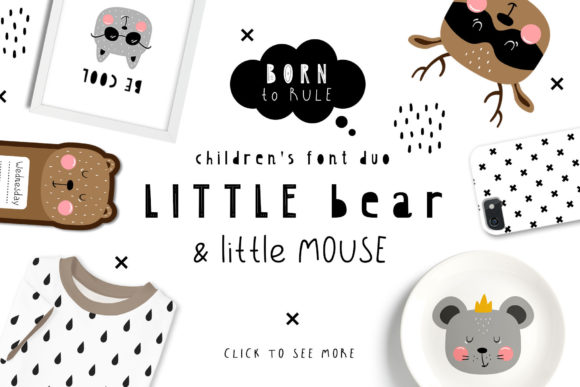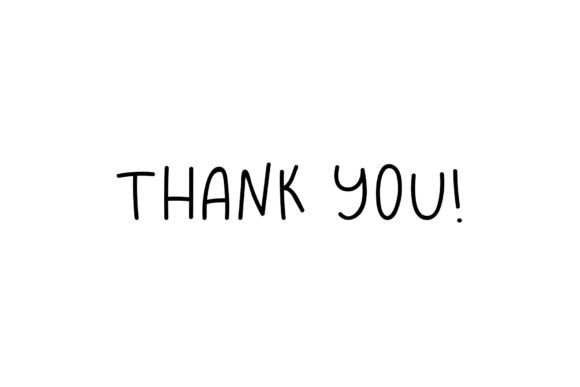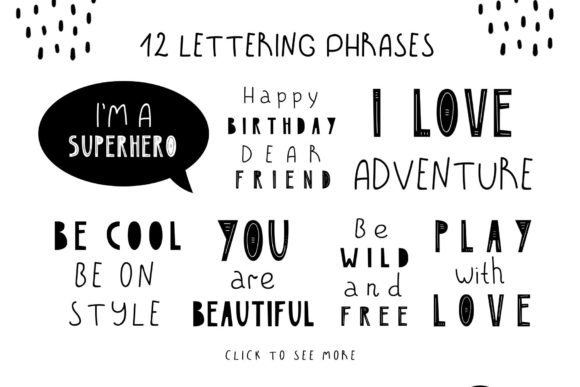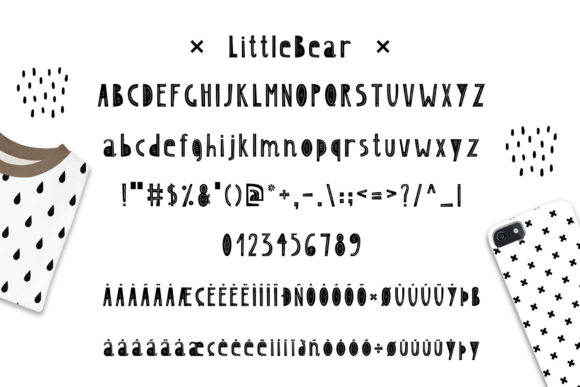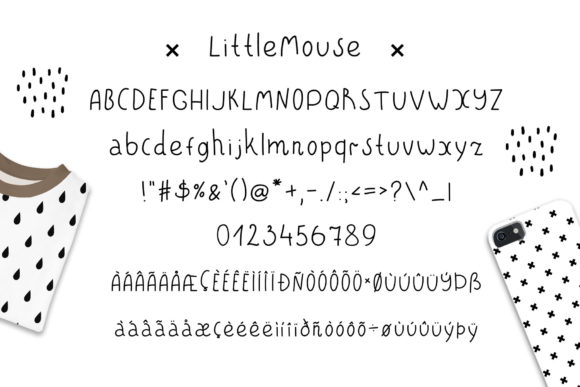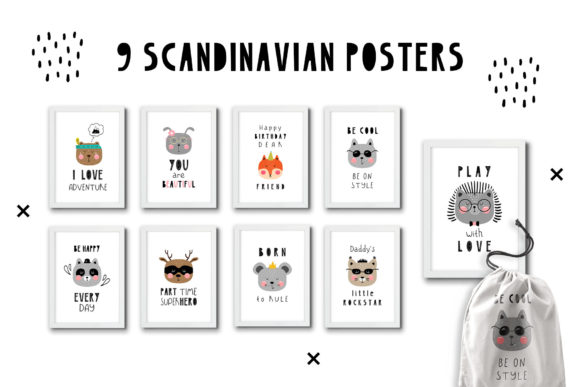
Little Bear & Little Mouse Duo Font
About Little Bear & Little Mouse Duo Font
The Little Bear & Little Mouse is an amazing font duo. Both have a fun and playful feel and can be combined perfectly, but are also amazing as strong stand-alones. Allowing you to create multiple unique designs in an instant.
With the help of these fonts, you can make cards, prints on clothes, bright posters, calendars, brochures, maps, decorate the children’s room, create invitations, wrapping paper, icons, mugs and more! Just take it and create a variety of design options!
The fonts are perfect for Scandinavian style products!